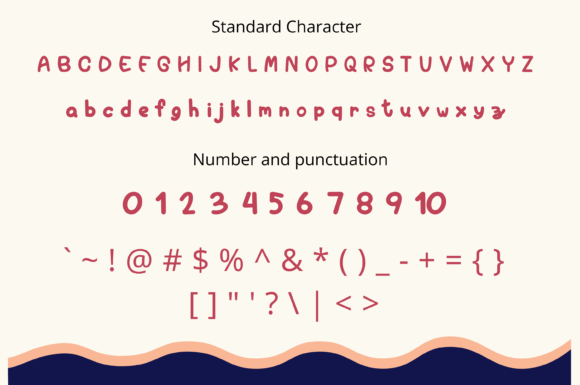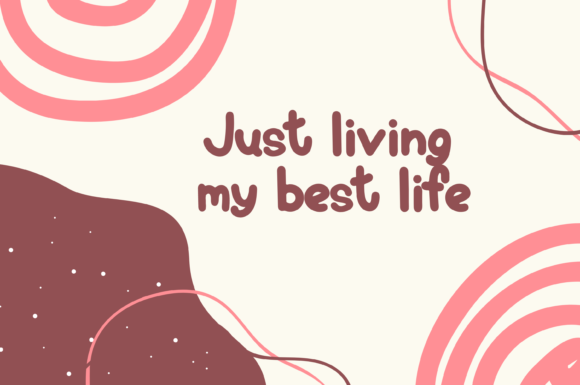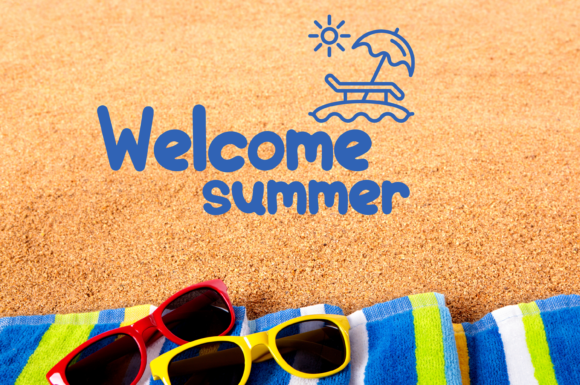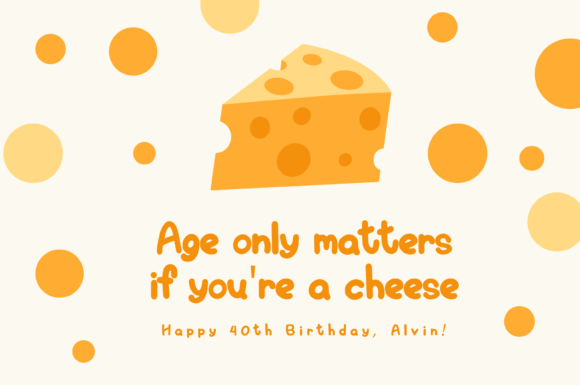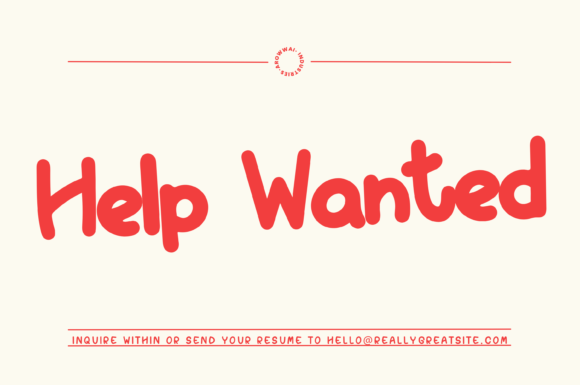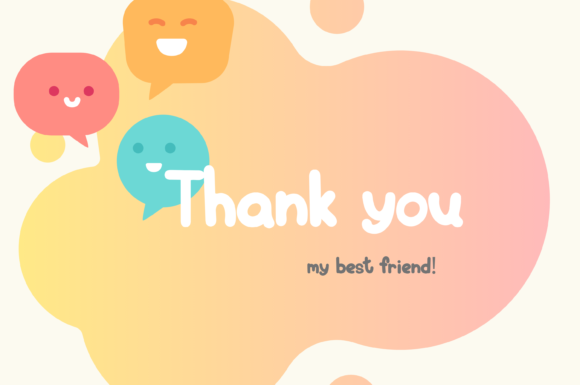
Bubble Gum Font: The Whimsical and Clean Handwritten Font for Creative Projects
Are you tired of using the same old fonts for your creative projects? Look no further than the Bubble Gum Font, a whimsical and clean handwritten font that’s sure to make your designs stand out. With its unique and playful style, this font is perfect for designers, crafters, and anyone looking to add a touch of personality to their work.
What is Bubble Gum Font?
Bubble Gum Font is a type of handwritten font that’s designed to mimic the look and feel of bubble gum labels. It’s a clean and modern take on traditional handwriting, with a playful and whimsical twist. The font features rounded letters, subtle imperfections, and a carefree vibe that’s sure to capture the attention of your audience.
Characteristics of Bubble Gum Font
So, what makes Bubble Gum Font so special? Here are some of its key characteristics:
- Whimsical and playful: Bubble Gum Font has a fun and carefree personality that’s perfect for creative projects.
- Clean and modern: Despite its playful nature, the font is clean and modern, making it suitable for a wide range of applications.
- Handwritten: The font is designed to look like it was written by hand, giving it a personal and human touch.
- Rounded letters: The letters in Bubble Gum Font are rounded and smooth, giving the font a friendly and approachable feel.
- Subtle imperfections: The font features subtle imperfections, such as slight variations in letter size and shape, which add to its handmade feel.
Uses for Bubble Gum Font
Bubble Gum Font is incredibly versatile and can be used for a wide range of creative projects, including:
- Branding and packaging: The font’s playful and whimsical nature makes it perfect for branding and packaging projects, such as labels, stickers, and product packaging.
- Stationery and cards: Bubble Gum Font is a great choice for stationery and card designs, adding a personal and handmade touch to your correspondence.
- Digital design: The font is also suitable for digital design projects, such as social media graphics, blog posts, and website headers.
- Crafting and DIY: Crafters and DIY enthusiasts will love using Bubble Gum Font for their projects, such as scrapbooking, journaling, and handmade crafts.
Why Choose Bubble Gum Font?
So, why should you choose Bubble Gum Font for your creative projects? Here are just a few reasons:
- Unique and eye-catching: The font’s playful and whimsical nature makes it stand out from more traditional fonts.
- Versatile: Bubble Gum Font can be used for a wide range of projects, from branding and packaging to stationery and digital design.
- Easy to read: Despite its playful nature, the font is easy to read and understand, making it suitable for body text and headlines.
- Customizable: The font can be customized to fit your project’s needs, with options for different colors, sizes, and styles.
| Author | AchiArt |
In conclusion, Bubble Gum Font is a whimsical and clean handwritten font that’s perfect for designers, crafters, and anyone looking to add a touch of personality to their creative projects. With its unique and playful style, this font is sure to make your designs stand out and capture the attention of your audience. So why not give it a try and see how it can elevate your creative projects?
Tips and Tricks for Using Bubble Gum Font
Here are a few tips and tricks for getting the most out of Bubble Gum Font:
- Use it sparingly: While Bubble Gum Font is playful and fun, it can be overwhelming if used too much. Use it sparingly to add a touch of personality to your designs.
- Pair it with other fonts: Bubble Gum Font pairs well with other fonts, such as sans-serif fonts or script fonts. Experiment with different font combinations to find the perfect look for your project.
- Experiment with colors: The font looks great in a variety of colors, from bright and bold to pastel and soft. Experiment with different colors to find the perfect look for your project.
With its whimsical and playful nature, Bubble Gum Font is sure to add a touch of personality to your creative projects. So why not give it a try and see how it can elevate your designs?